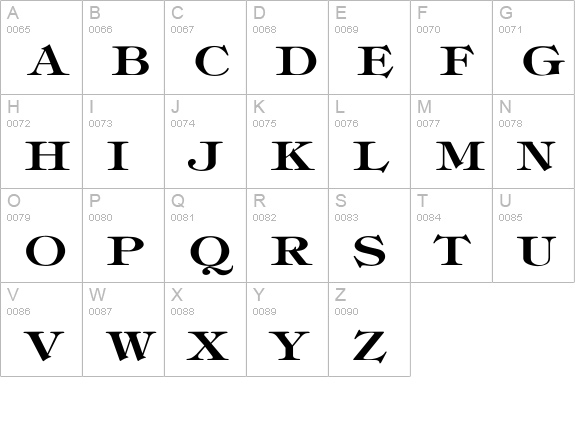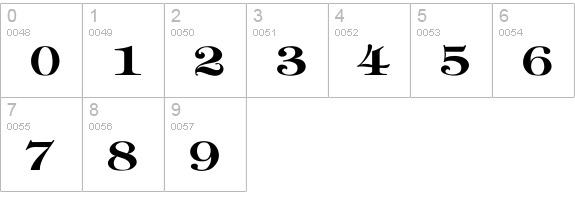
Timpani-Bold Wd is a strong, high-contrast variant in the Timpani typeface family \xE2\x80\x94 well suited to headlines, attention-grabbing titles, and strong calls-to-action.
Timpani-Bold Wd font is a striking and bold typeface that is perfect for making a statement in any design project. With its strong and commanding presence, this font is sure to grab attention and leave a lasting impression. The Timpani-Bold Wd font features thick and robust letterforms that exude confidence and power. Each character is meticulously crafted to ensure clarity and legibility, even at smaller sizes. The bold weight adds an extra level of impact, making it ideal for headlines, titles, and other prominent text. Not only does the Timpani-Bold Wd font deliver on style, but it is also free to download at FontsMarket.com. This means that you can add this impressive font to your collection without any cost. Whether you are a professional designer or someone looking to enhance their personal projects, this font is readily available for you to use. The versatility of the Timpani-Bold Wd font allows it to be used across a wide range of design applications. From branding and advertising to posters and packaging, this font can elevate any project to the next level. Its bold and impactful nature will ensure that your message is communicated with clarity and authority. So why wait? Download the Timpani-Bold Wd font today from FontsMarket.com and unleash its power in your designs. With its striking presence, free availability, and exceptional design quality, this font is a must-have for any design enthusiast or professional. Don't miss out on the opportunity to make a bold statement with your typography - get the Timpani-Bold Wd font now.